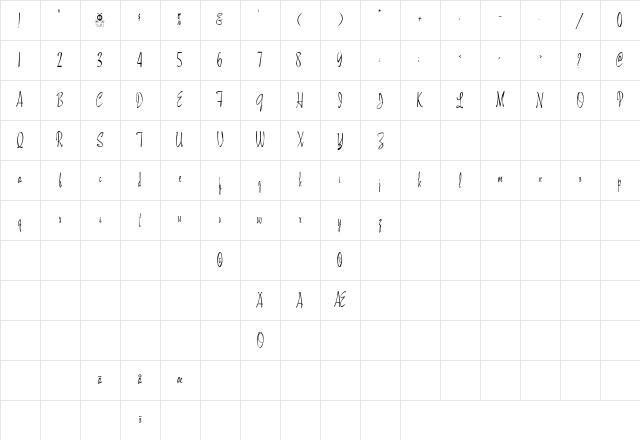
MaidstoneScript Regular Free Font
MaidstoneScript Regular
MaidstoneScript Family
Design Context for MaidstoneScript
MaidstoneScript flows with the natural rhythm of handwritten lettering, making it ideal for designs that call for warmth and personal expression.